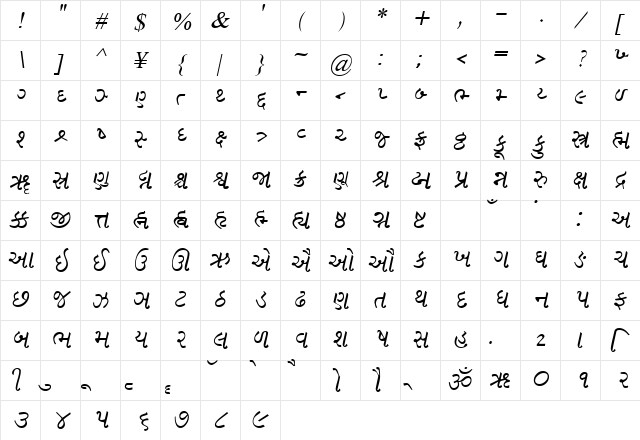
GujaratiRajkotSSK Italic
Design Context for GujaratiRajkotSSK Typeface
GujaratiRajkotSSK offers clean, dependable letterforms without strong stylistic allegiance, making it a practical choice for designers who need flexibility. The dynamic lean of this cut emphasises speed and emphasis in any layout.
Pro Tip: Use GujaratiRajkotSSK for emphasis, pull quotes, and subheadings where its slanted energy can add rhythm to the layout.